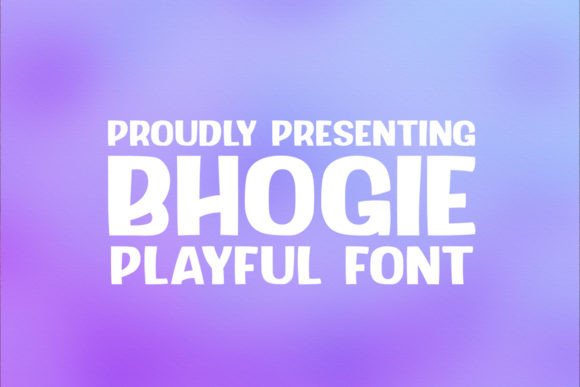
The Ultimate Guide to Bhogie Font: Adding a Fun Twist to Your Designs
Have you ever been in the middle of a design project, and suddenly, you just can’t seem to find the right font? I recall a particularly frustrating experience when I was working on a branding project for a trendy new cafe. The client wanted a font that was both fun and sophisticated, but everything I tried seemed to fall flat. That’s when I stumbled upon Bhogie Font, and it completely transformed my design.
Bhogie is a fun and casual display font, carefully crafted for those who need a beautiful and refreshing look to their designs. In this article, we’ll dive into the world of Bhogie Font, exploring its features, how to use it, and some similar fonts you might love.
An Honest Review of Bhogie Font
What I Love About Bhogie Font
- ✨ Unique and playful design that’s perfect for creative projects
- ✅ Highly legible, even at smaller sizes
- 🌈 Beautifully crafted to add a pop of personality to your designs
While Bhogie Font is an amazing addition to any design project, there are a few things to keep in mind:
- 🤔 Limited suitability for body text, as it’s primarily designed for display purposes
- ⚠️ May not be the best choice for very formal or professional projects
The Backstory of Bhogie Font
Bhogie Font was designed with the intention of bringing a fresh and fun twist to the world of typography. Its creator aimed to craft a font that would be both beautiful and refreshing, perfect for designers looking to add a unique touch to their projects. The name “Bhogie” reflects the playful and carefree spirit of the font.
Q: What type of projects is Bhogie Font best suited for?
A: Bhogie Font is ideal for creative and informal projects, such as branding, posters, and social media graphics.